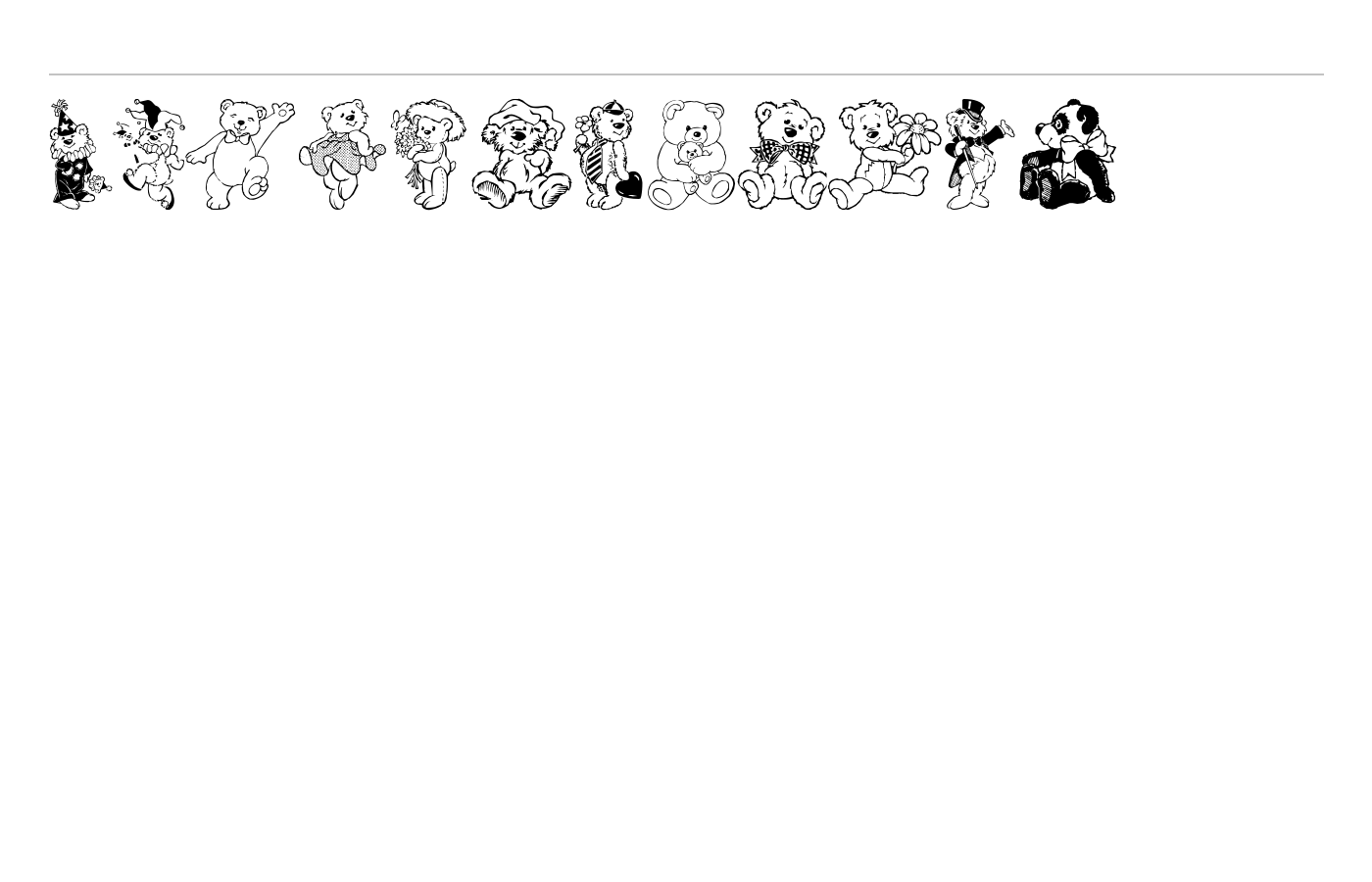
BearBats is a playful decorative font featuring whimsical bear illustrations instead of traditional letterforms, making it ideal for child-friendly designs and fun projects. Its charming, hand-drawn style brings a warm, nostalgic feel that works wonderfully for invitations, posters, and playful branding where a lighthearted, imaginative vibe is desired. This font adds personality and a unique touch to any creative work aimed at families or children.
BearBats Font
About BearBats Font